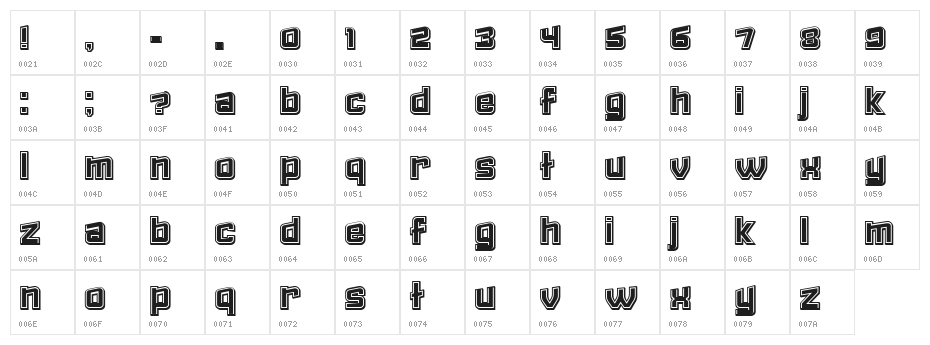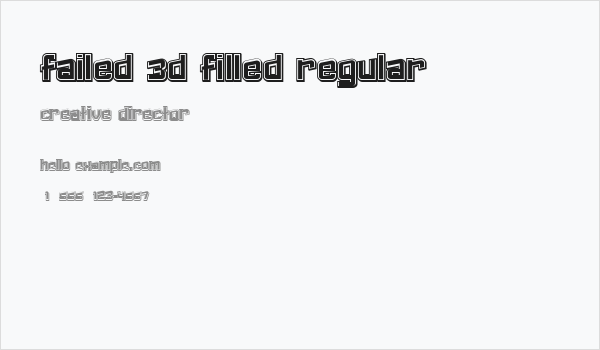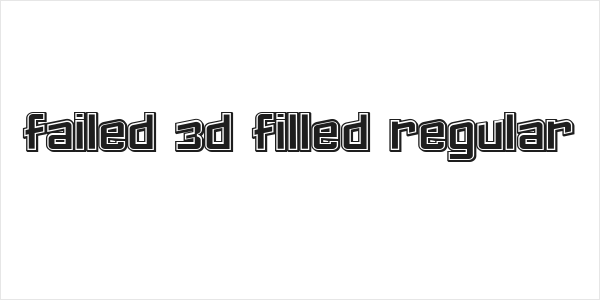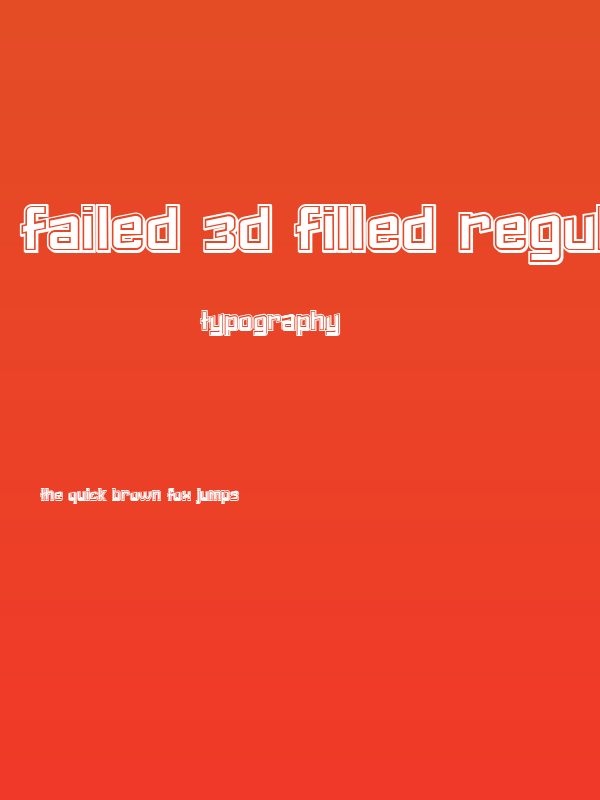
Failed 3d Filled Regular Font
Failed 3d Filled Regular Description
This font features a bold, three-dimensional appearance with a filled interior and a prominent outline, creating a striking visual effect. The characters are blocky and geometric, with a consistent thickness throughout, giving them a modern and robust look. The uppercase and lowercase letters maintain a uniform style, with the numbers and special characters following suit. The font's design is ideal for making a strong impact, suitable for headlines or titles where attention is key. Its unique 3D effect adds depth and dimension, making it stand out in any design project.
| Proposed Projects | Ideal for posters, logos, video game graphics, and any project requiring a bold, eye-catching typeface. |